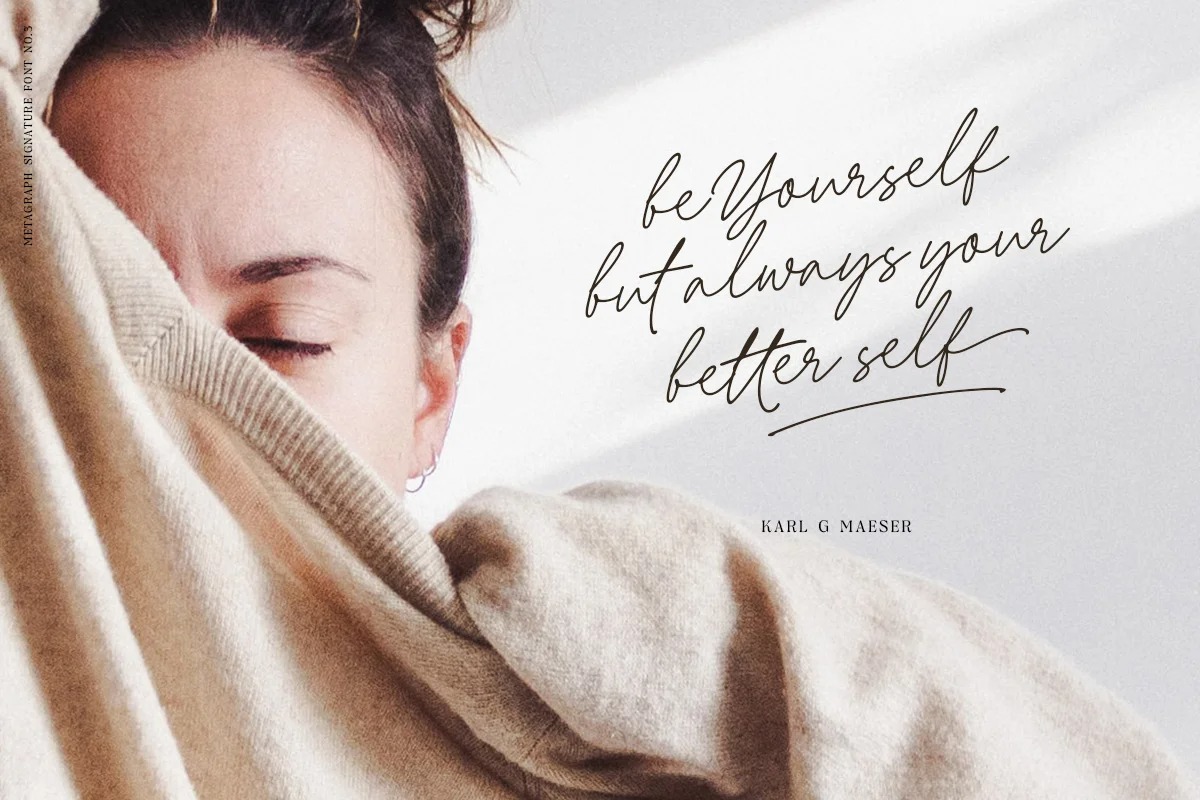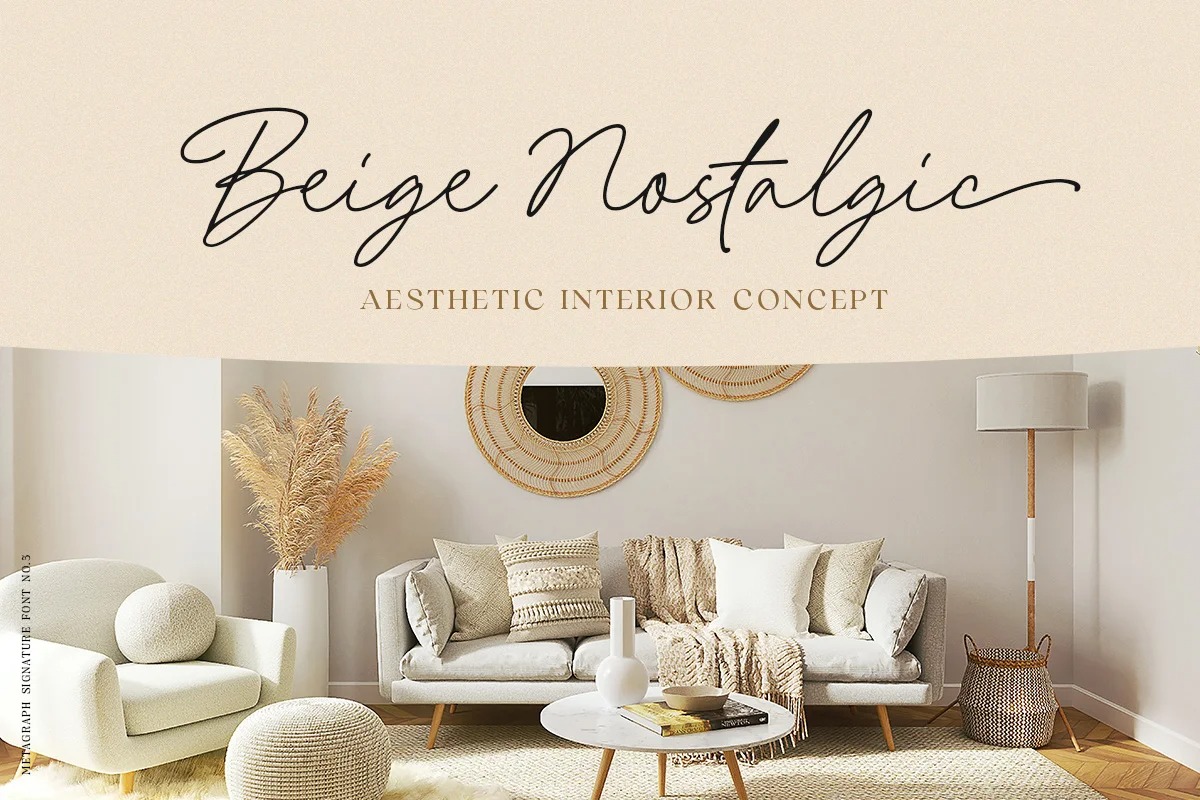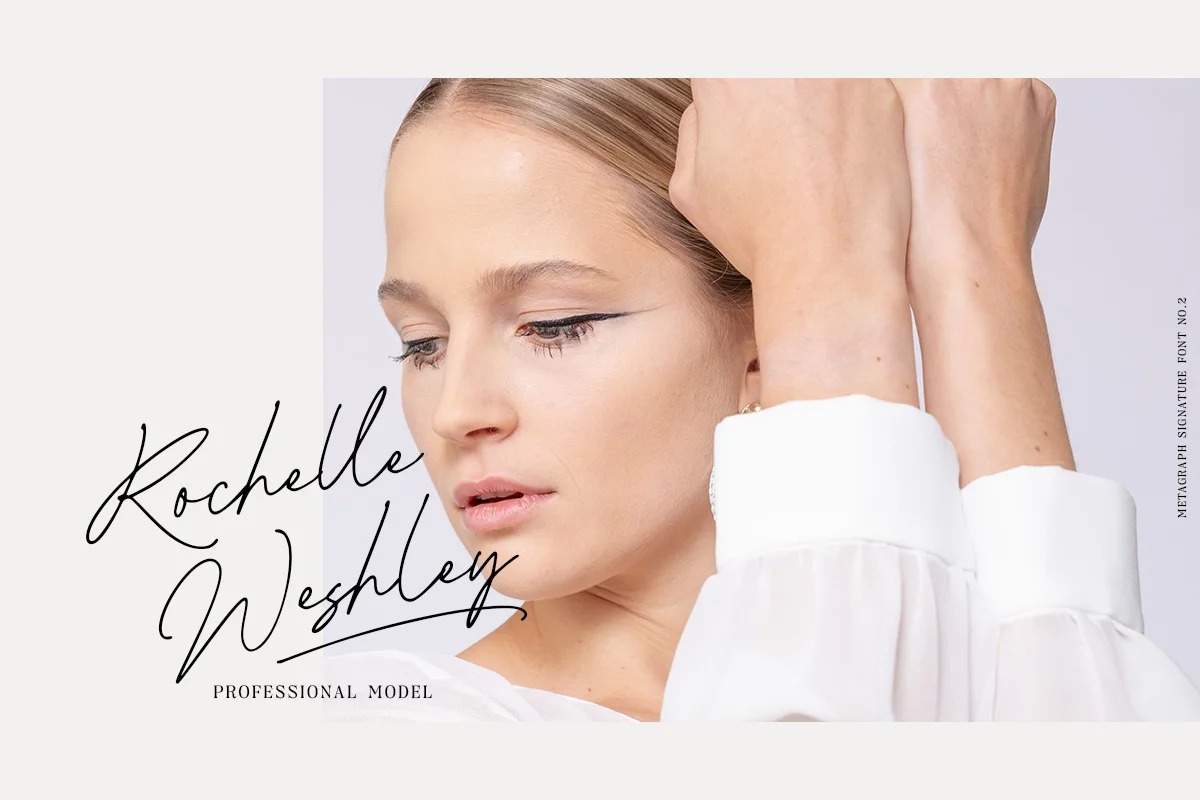
Metagraph Font
Metagraph Handwritten Font
This is a delicate, elegant, and flowing handwritten font package by Letterhend Studio. It has beautiful and well-balanced characters and as a result, it matches a wide pool of designs. This typeface comes with 3 fonts which you can choose from. This type of font perfectly made to be applied especially in logo, and the other various formal forms such as invitations, labels, logos, magazines, books, greeting / wedding cards, packaging, fashion, make up, stationery, novels, labels or any type of advertising purpose.